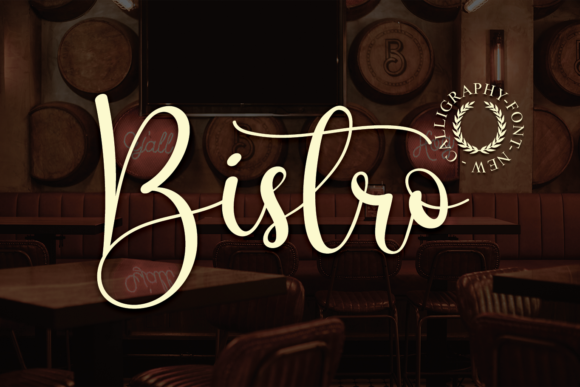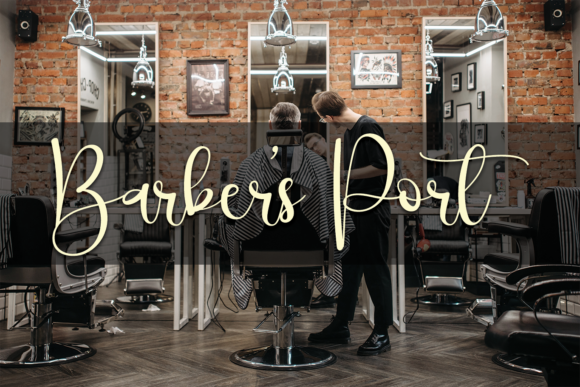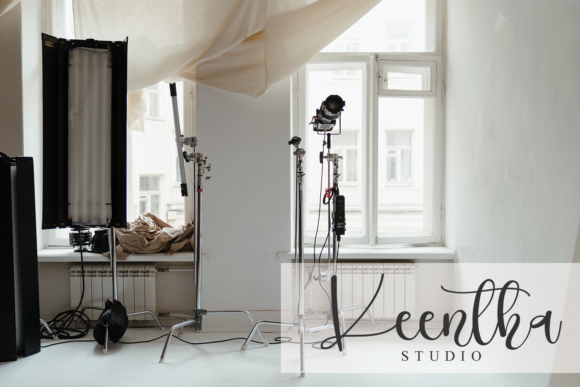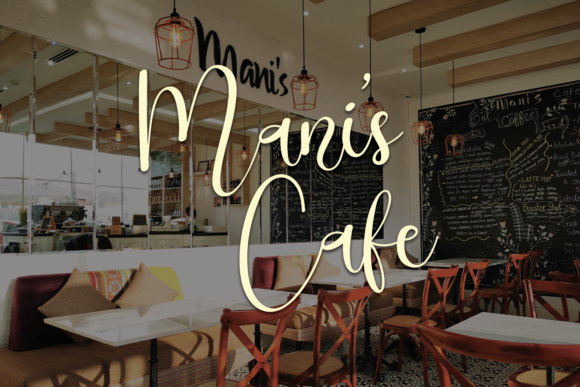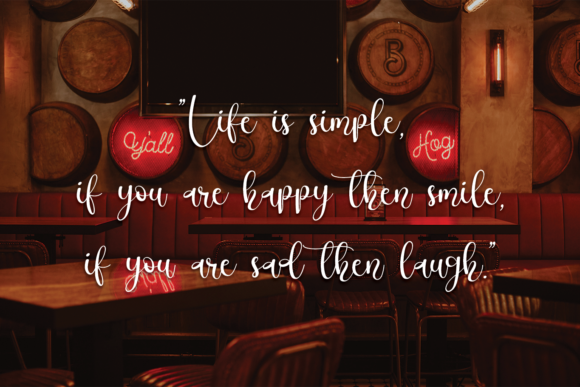
About Bistro Font
Bistro is a round-lettered script font. It has a modern yet whimsical style and it will undoubtedly immerse your designs into a magical world.